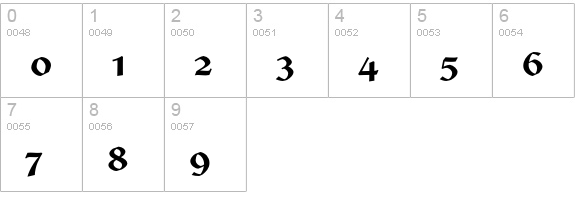
Amanda Std Bold is a strong, high-contrast variant in the Amanda typeface family \xE2\x80\x94 well suited to headlines, attention-grabbing titles, and strong calls-to-action.
Amanda Std Bold is a versatile and modern font that exudes confidence and sophistication. Its bold and striking appearance makes it ideal for headlines, titles, and other attention-grabbing text. The clean and crisp lines of Amanda Std Bold give it a professional and polished look, perfect for both digital and print designs. The best part about Amanda Std Bold font is that it is completely free to download at FontsMarket.com. This means that you can easily access this stylish font for all your design projects without any cost. Whether you're creating posters, banners, logos, or website graphics, Amanda Std Bold is sure to make a bold statement and elevate your designs to the next level. Download Amanda Std Bold today and add a touch of modern elegance to your projects!